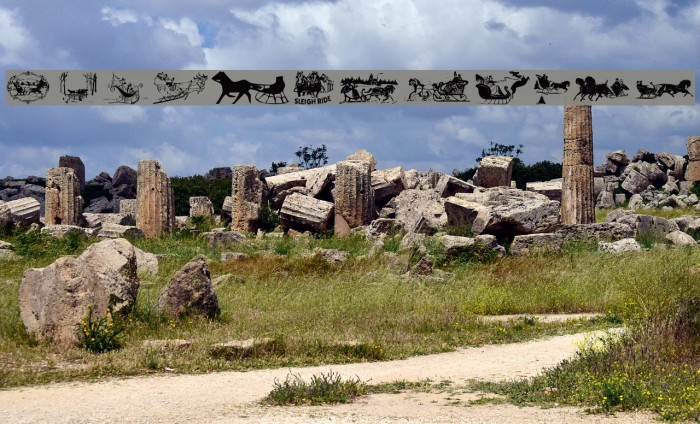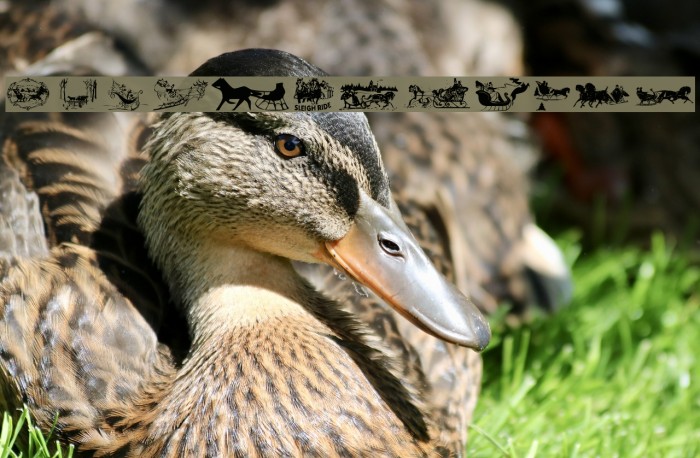
Sleigh Ride Font
This font features a series of intricate and whimsical sleigh and horse illustrations, capturing a festive and nostalgic winter theme. Each character is represented by a unique silhouette, depicting various scenes of sleigh rides. The designs are detailed and evoke a sense of movement and storytelling, making it ideal for holiday-themed projects. The font is decorative and not suitable for standard text but excels in creating a specific atmosphere or theme.
A decorative font with sleigh and horse illustrations, perfect for festive themes.
- Proposed Projects: Holiday cards, festive event invitations, winter-themed posters, and decorative banners.
- Use Case: Logos, Headlines, Decorative elements